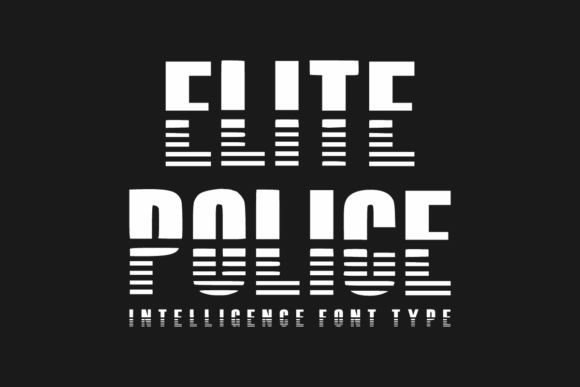
Unlock Your Creativity with the Elite Police Font
You know that moment when you’re brainstorming ideas for a new project and suddenly, a spark of inspiration hits you? The thrill of creation is exhilarating, and with the right tools, it can be even more exciting. Imagine having a font that embodies the spirit of boldness and energy, perfectly capturing the essence of youthful creativity. That’s exactly what the Elite Police Font offers – a contemporary typeface that’s designed to unleash your imagination and bring your projects to life.
As a designer, you’re constantly on the lookout for fonts that can elevate your work and make it stand out. The Elite Police Font is a valuable addition to any design arsenal, providing a unique and captivating look that’s perfect for a wide range of projects, from kids’ accessories to bold comic headlines. With its distinct, audacious charm, this font is sure to inspire your creativity and take your designs to the next level.
Elite Police Font Key Features
- Font Styles: Elite Police Font offers a range of font styles, including regular, bold, italic, and bold italic, providing users with flexibility in their design choices.
- Unique Characteristic: Elite Police Font features a distinctive, bold, and modern design that is specifically tailored to convey a sense of authority and professionalism, making it ideal for use in law enforcement and government applications.
- Scalability: The font is designed to be highly scalable, allowing it to be used effectively in a wide range of applications, from small text to large headlines.
Elite Police Font Review
Overall, I have mixed feelings about the Elite Police Font. Here’s a breakdown of what I like and dislike.
- The font has a clean and modern look, making it perfect for use in law enforcement or military applications.
- The font is highly legible, even at small sizes, which is essential for displaying crucial information on IDs, badges, and other materials.
- The font’s high contrast between letters and the background makes it easy to read in various lighting conditions.
- The font lacks character, which might make it seem bland or uninteresting to some users.
- The font does not come with a complete character set, which might be a problem for users who need to display non-ASCII characters.
- The font’s design is quite simple, which might not be suitable for use in applications where a more complex or decorative font is required.
The Elite Police Font is a solid choice for law enforcement or military applications where legibility and readability are crucial. However, its lack of character and limited character set might make it less appealing to users who need a more versatile font.
Elite Police Font: A Practical Application Guide
Getting the Most Out of Elite Police Font
For the best results, use Elite Police Font in bold or italic styles to emphasize text. Experiment with different font sizes to create visual hierarchy. Use it sparingly to create a dramatic effect.
Elite Police Font is commonly used for law enforcement, military, and government-related designs. It’s also used for crime scene investigations, police reports, and other official documents.